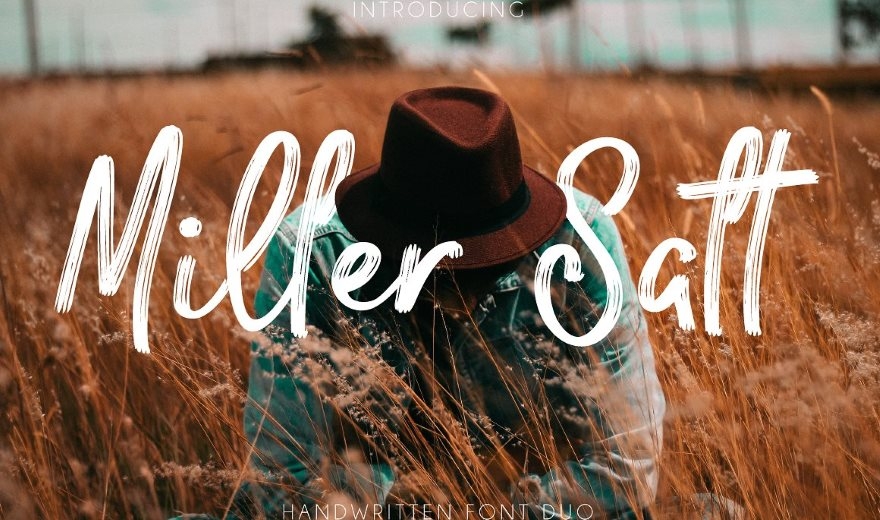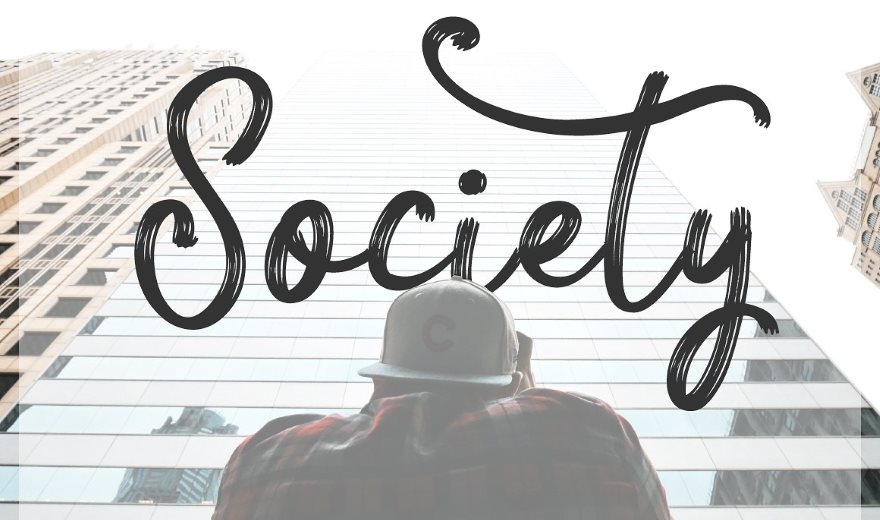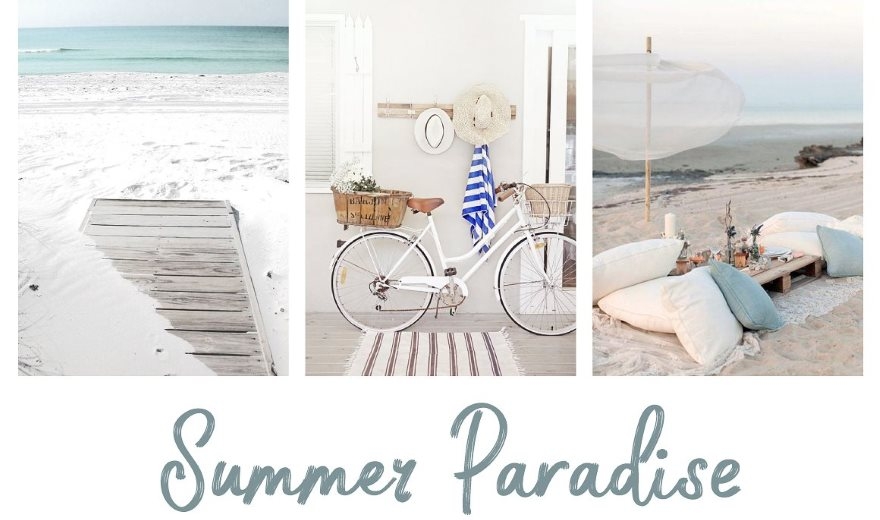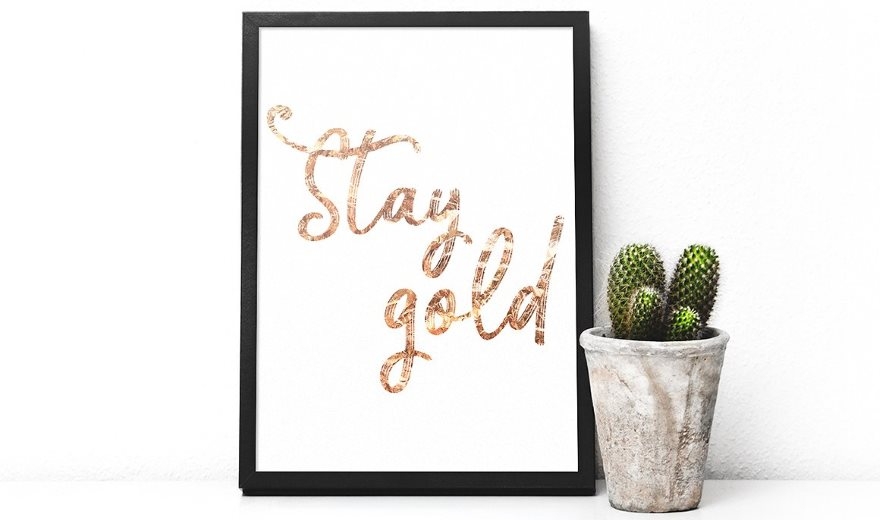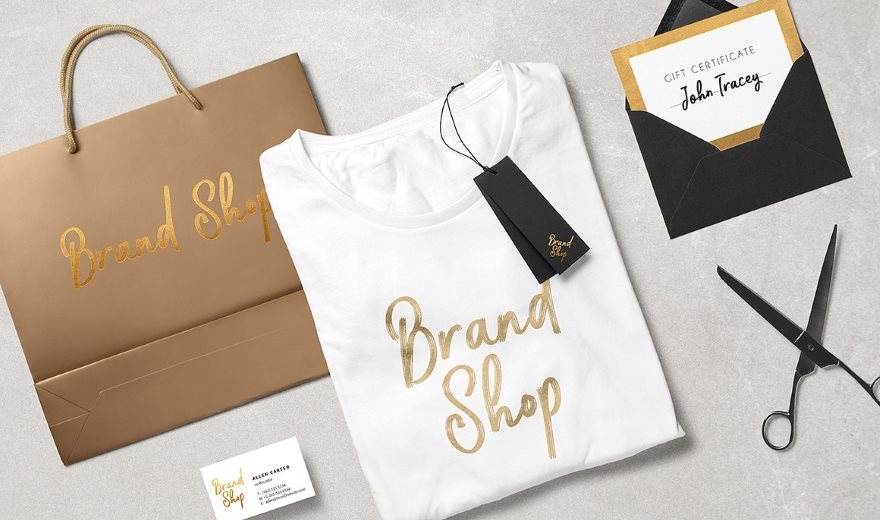
Enjoy these two outstanding handwritten dry brush script fonts. These fonts are perfect for branding and decor, eye-catching logos, wedding invitation, your blog, or any other design projects. These free fonts are presented in TTF, OTF, WOFF and Webfont formats.